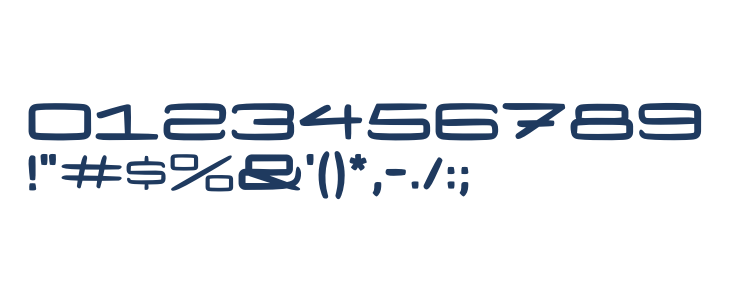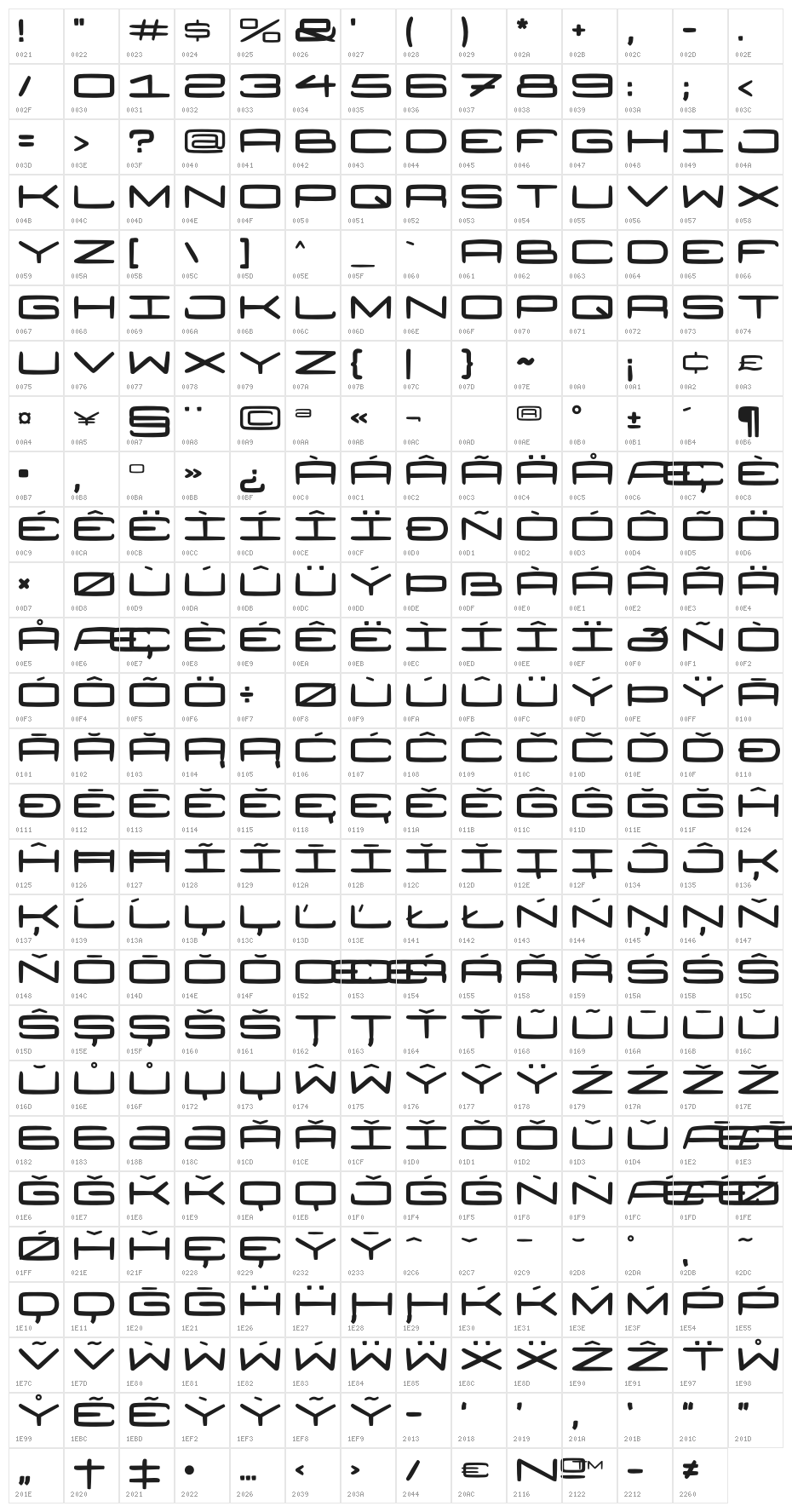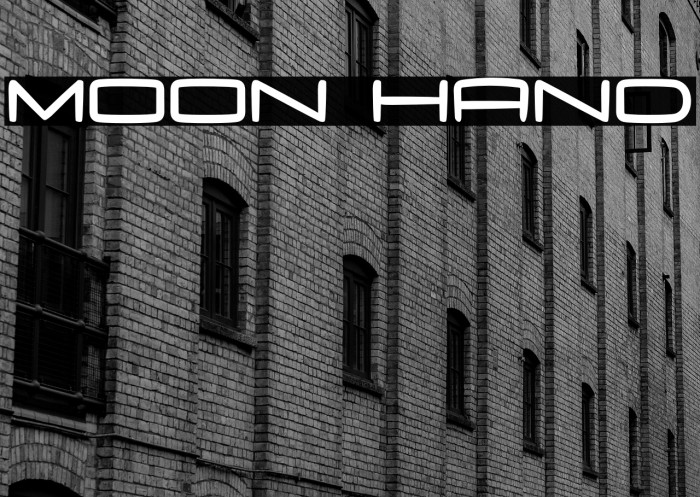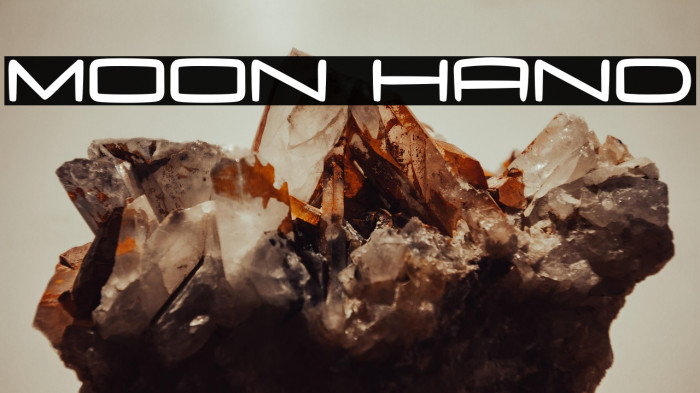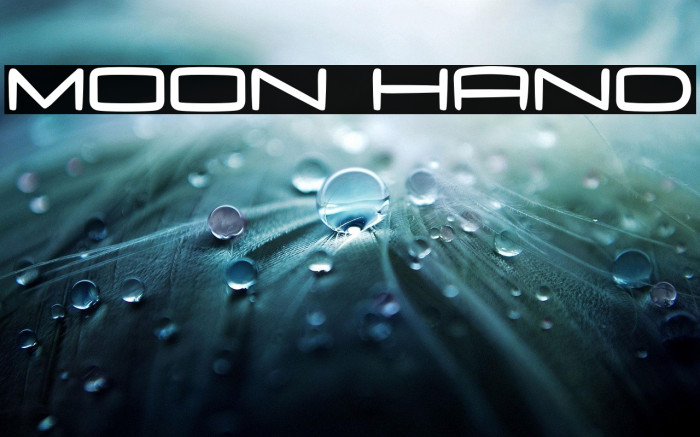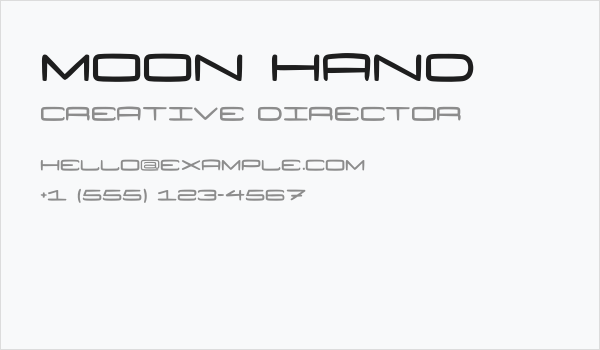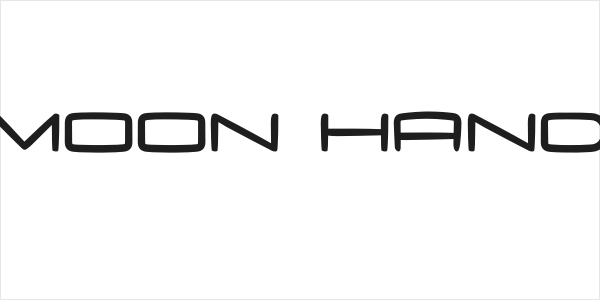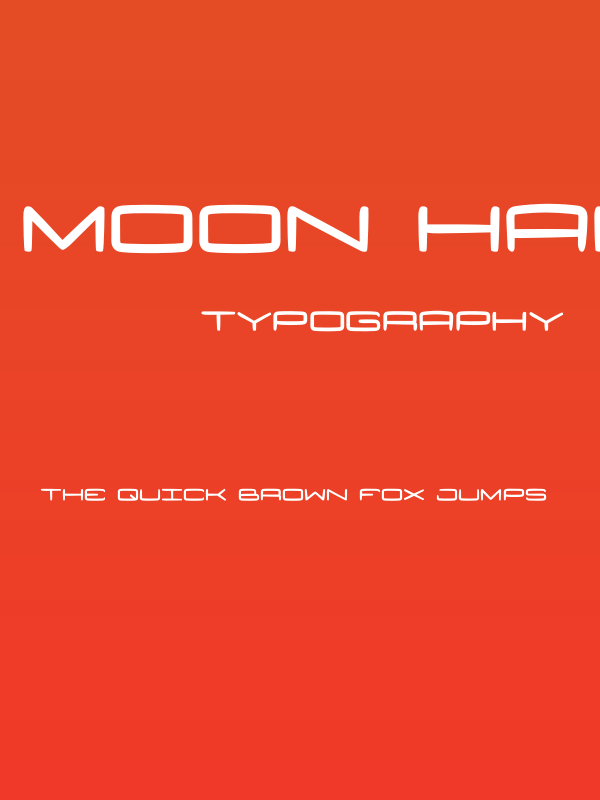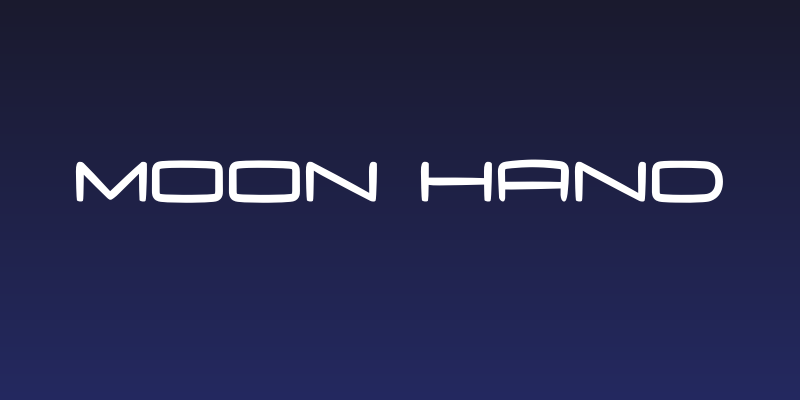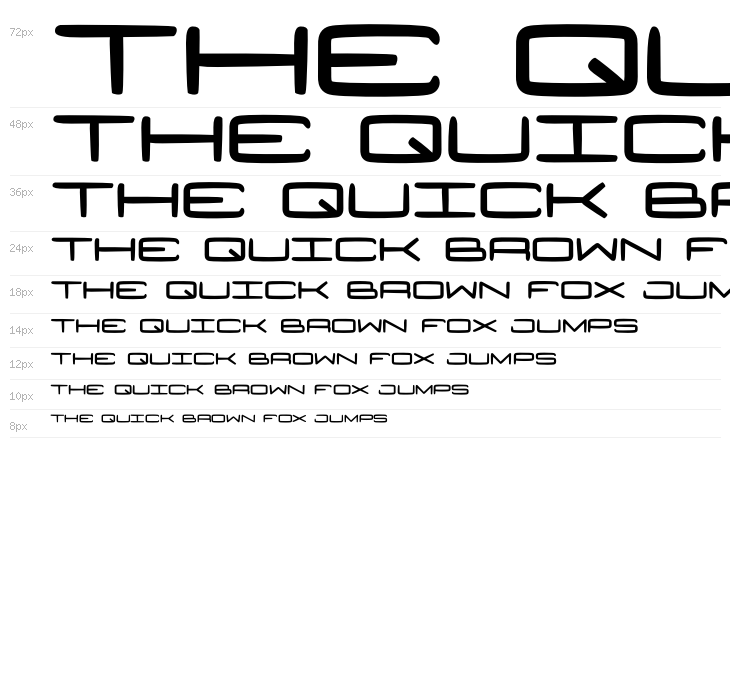
Moon Hand Font
Moon Hand Description
This font features a futuristic and geometric design, characterized by its rounded edges and consistent stroke width. The uppercase and lowercase letters maintain a uniform height, creating a cohesive and streamlined appearance. The numerals and special characters follow the same design principles, ensuring a harmonious look across all elements. The font's modern aesthetic is ideal for projects that require a sleek and contemporary feel. Its unique style makes it suitable for branding, technology-related designs, and creative projects that aim to stand out.
| Use Case | Logos, Headlines, Branding |
| Proposed Projects | Ideal for branding, technology-related designs, and creative projects seeking a modern aesthetic. |